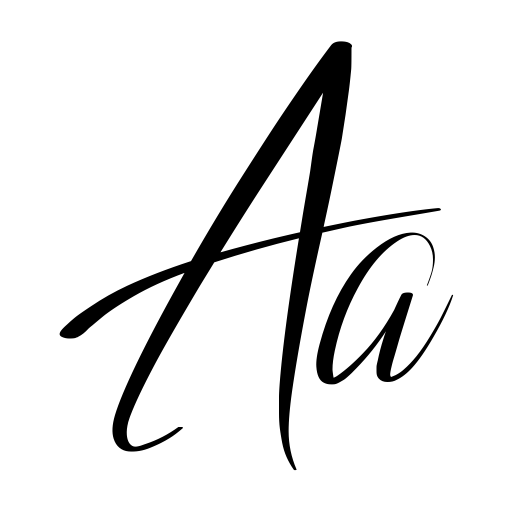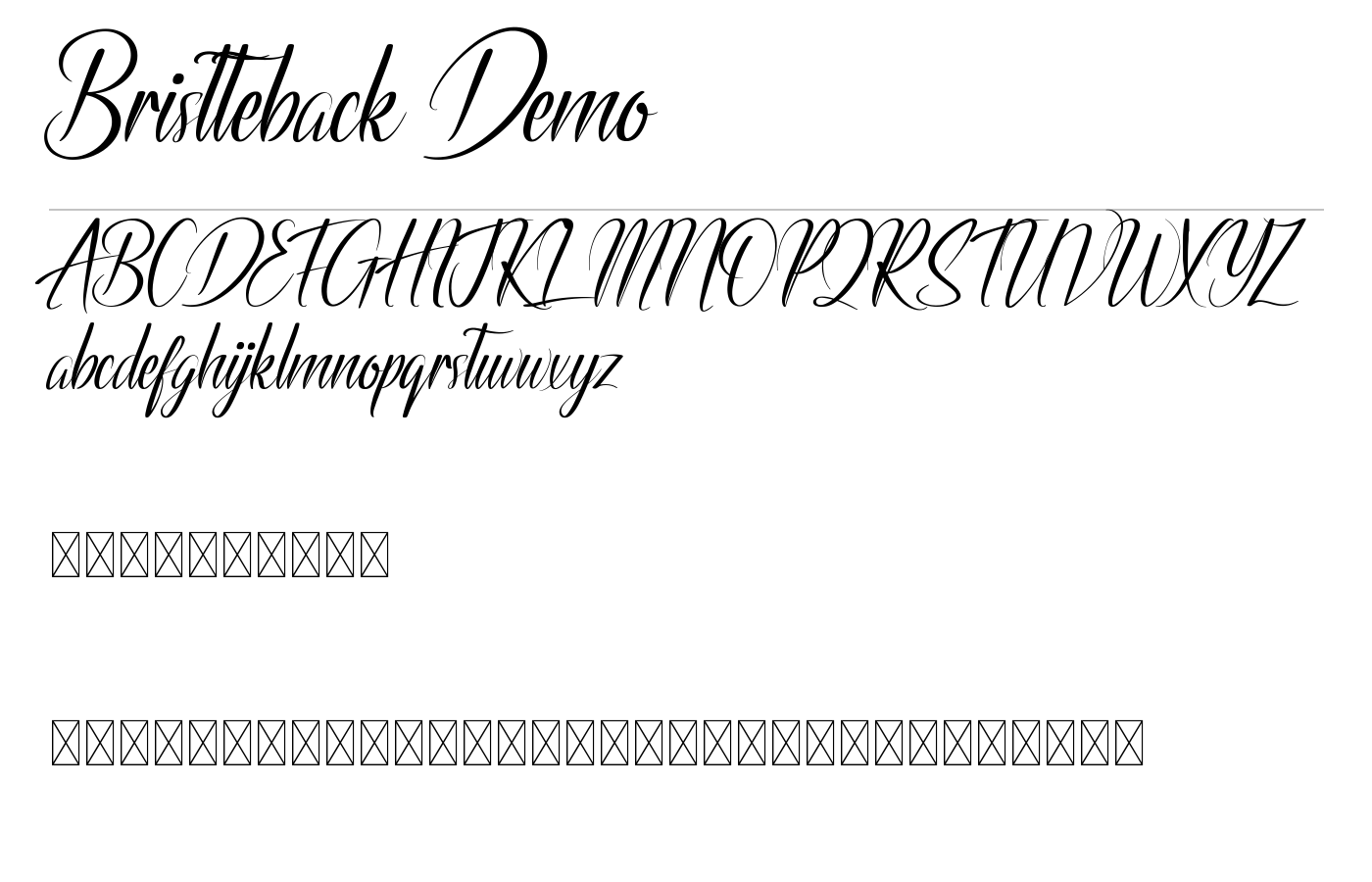
Bristteback Demo is a delicate and elegant script font with tall, slender letterforms and graceful, flowing strokes. Its fine contrast and smooth curves give it a sophisticated, handwritten feel, making it ideal for luxury branding, invitations, and stylish editorial use where a refined and artistic touch is desired. This font works best in large sizes for headlines or logos, adding a classic yet modern flair to creative projects.
Bristteback Demo Font
About Bristteback Demo Font